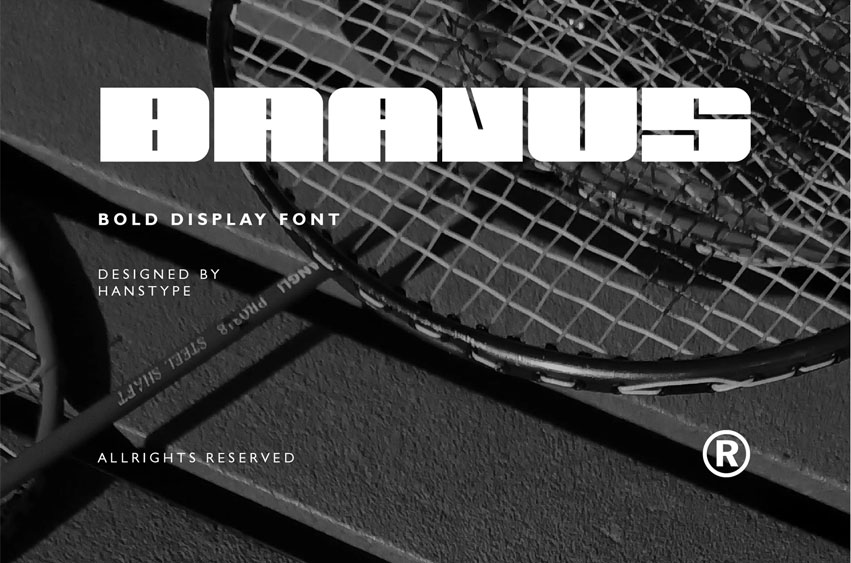
Bravus Font is a bold, character-rich typeface that speaks with confidence.
Its strong forms and distinctive style make it ideal for brands that want to project power, courage, and modern identity.